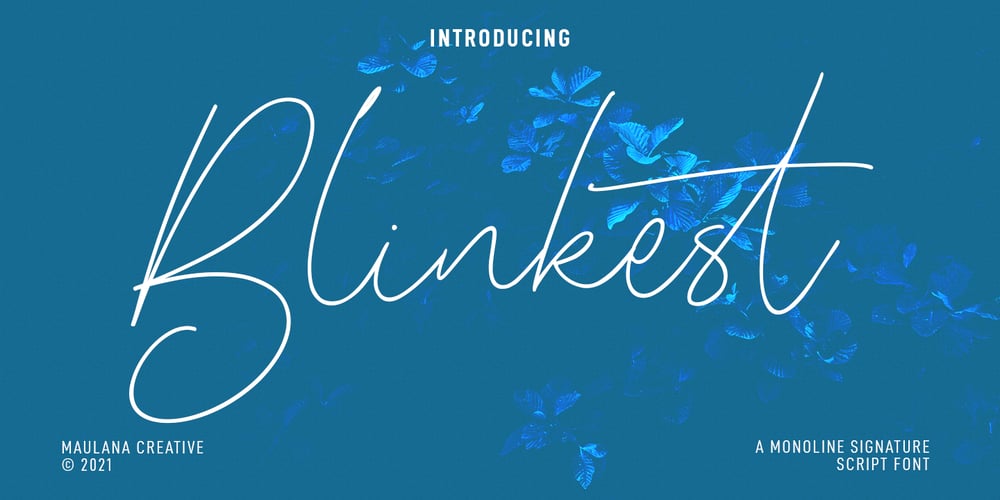
Blinkest Font Family was designed by Gilang Maulana and published by Maulana Creative. Blinkest contains 1 styles and family package options. “Blinkest” is a casual signature script font. With light mono-line stroke, fun character with a bit of ligatures. To give you an extra creative work. “Blinkest” font support multilingual more than 100+ language. This font is good for logo design, Social media, Movie Titles, Books Titles, a short text even a long text letter and good for your secondary text font with sans or serif. Make a stunning work with “Blinkest” font.Cheers, MaulanaCreative